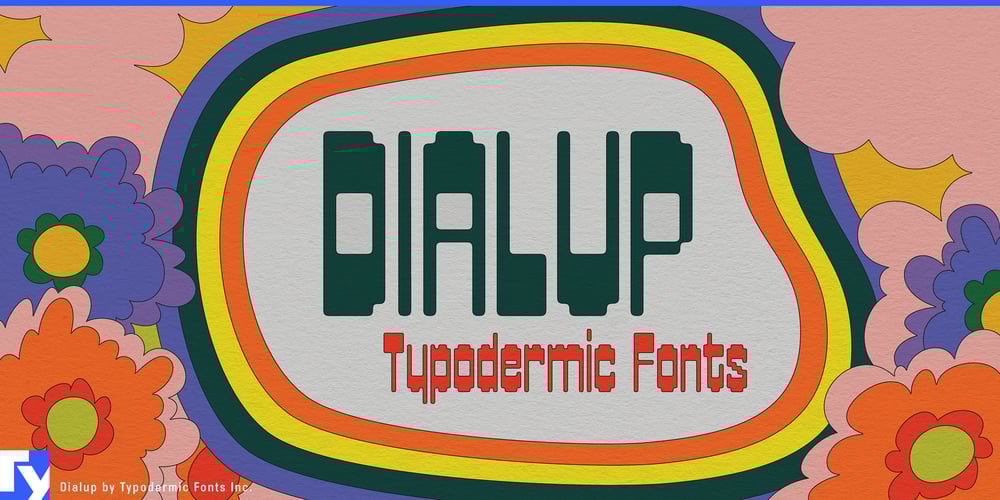
Dialup Font Family was designed by Ray Larabie and published by Typodermic. Dialup contains 1 styles and family package options. Dialup: The typeface that struts down the runway of time, blending ’70s psychedelia with ’80s digital chic. This Typodermic Fonts creation isn’t just a font—it’s a fashion statement, a time machine, and a design revolution all rolled into one.Inspired by the trailblazing work of Bob Newman and Philip Kelly, Dialup pays homage to the iconic Zipper typeface while flirting with the analog allure of Data ’70. It’s the typographic equivalent of platform shoes meeting the first home computers—unexpected, audacious, and utterly captivating. Dialup’s psychedelic pixel design doesn’t just nod to the past; it catwalks right into the present, turning heads and starting conversations. Each character is a carefully crafted piece of wearable art, softened and optically adjusted to sit as comfortably on the page as a well-tailored suit on the body.This isn’t your average retro revival. Dialup breaks free from the rigid pixel grid, embracing subtle superelliptical tensions that give it a funky sophistication. It’s the typographic equivalent of disco meeting new wave—a fusion that shouldn’t work but absolutely dazzles. Imagine your brand name in Dialup, splashed across a vintage-inspired t-shirt or gracing the cover of a limited-edition vinyl. Picture it headlining fashion magazines or setting the tone for a retro-futuristic ad campaign. From runway show invitations to boutique signage, Dialup doesn’t just fit in—it stands out. But Dialup isn’t content with just looking good. Its extensive language support ensures your message resonates across borders, from the discotheques of Paris to the underground clubs of Berlin. It’s fluent in the language of style, speaking volumes in any tongue.Choose Dialup when you want your designs to turn heads, start conversations, and push boundaries. It’s more than a typeface—it’s a statement piece, a conversation starter, a bridge between eras. In a world of fast fashion and fleeting trends, Dialup stands as a timeless classic with a rebellious edge.So, are you ready to dial up your design game? Step into the typographic time machine and let Dialup transport your projects to a place where fashion, technology, and design collide in an explosion of creative energy. Because in the ever-changing world of style, some looks are simply timeless—and Dialup is always in vogue.